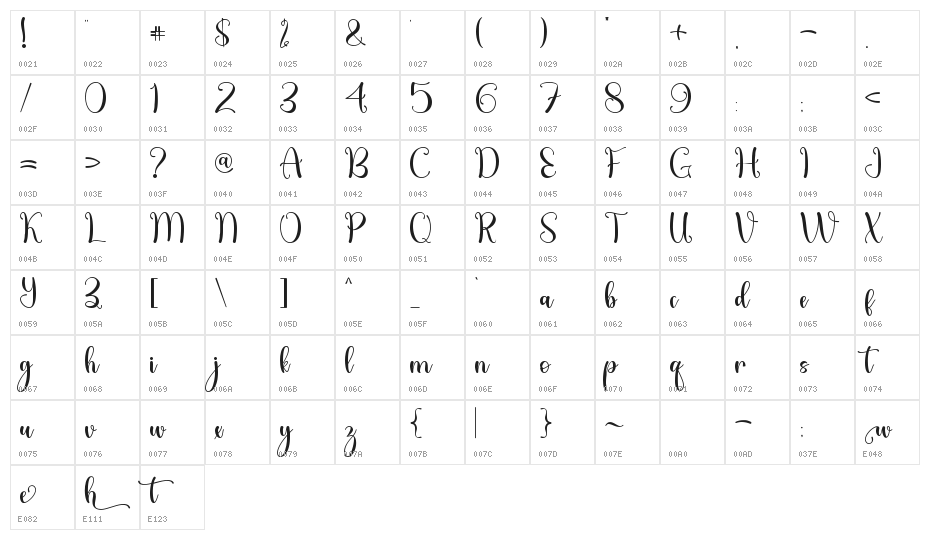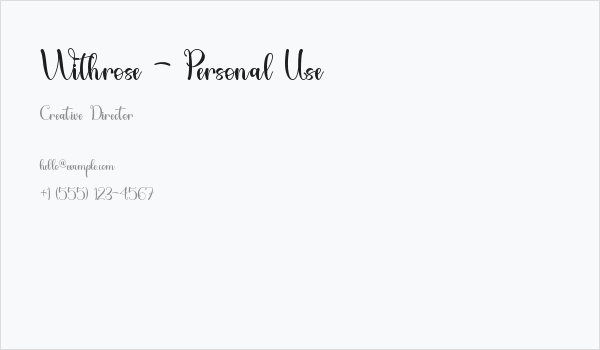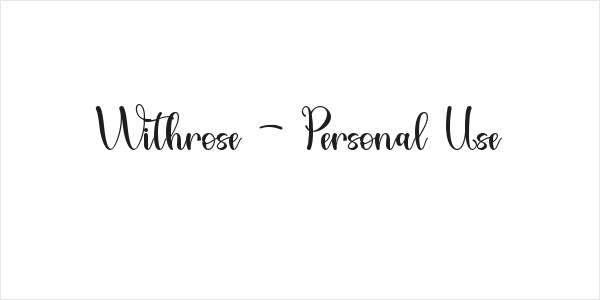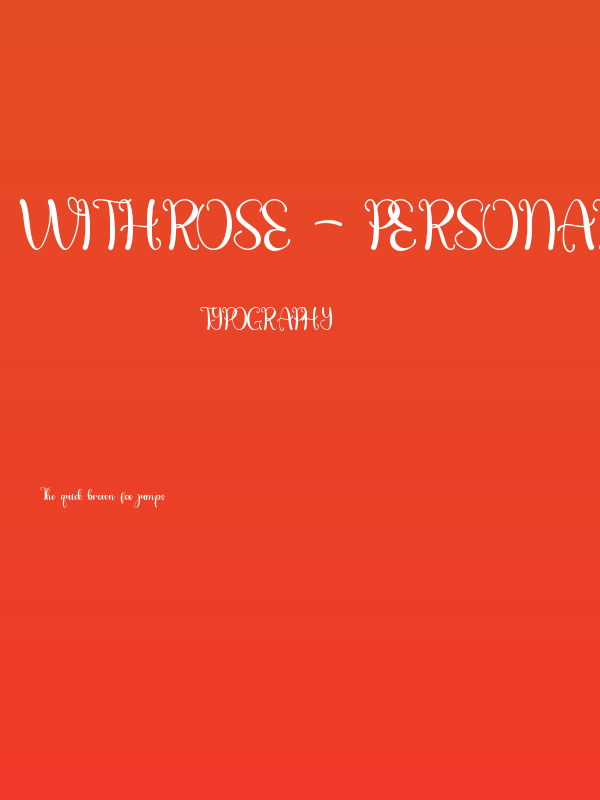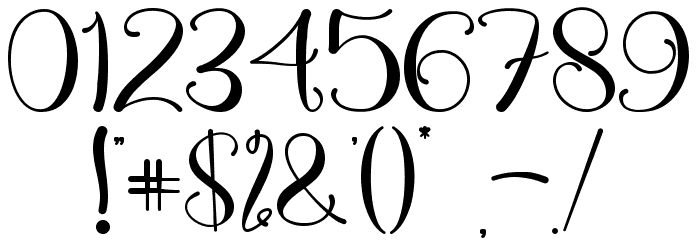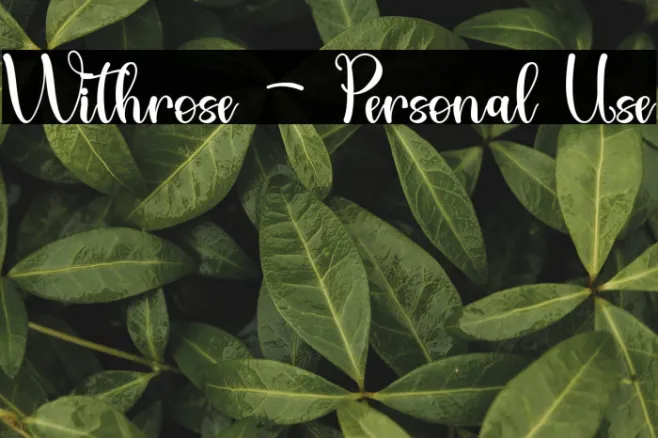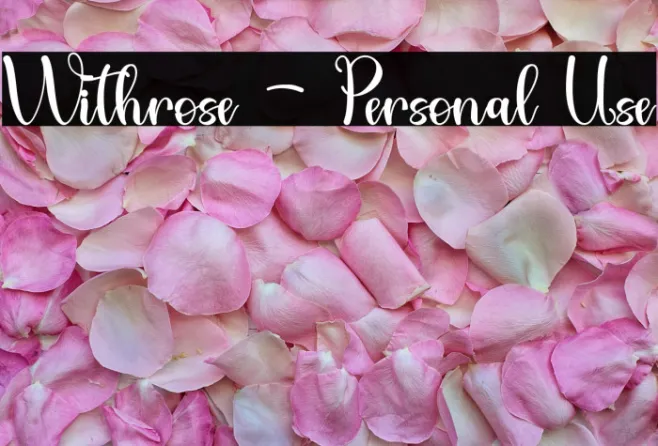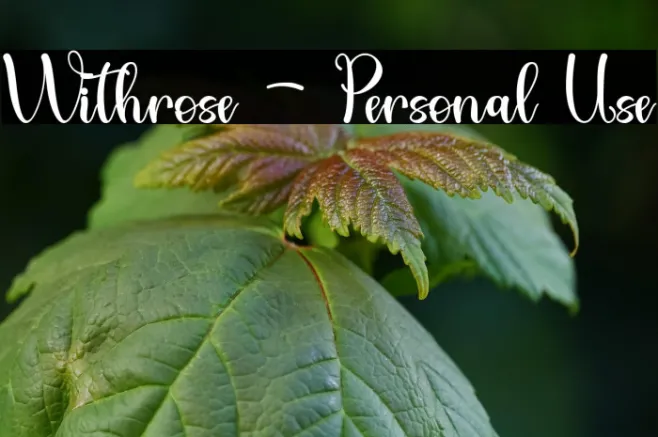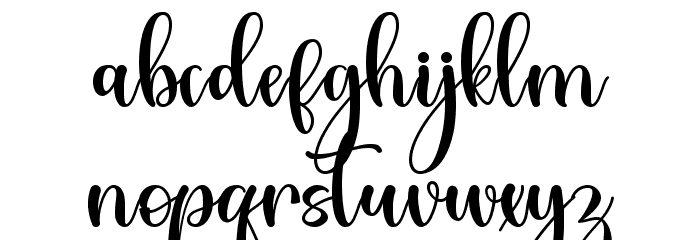
Withrose - Personal Use Font
Withrose - Personal Use Description
This elegant script font features a flowing, cursive style with graceful loops and swirls. The uppercase letters are particularly ornate, with extended flourishes that add a touch of sophistication and charm. The lowercase letters maintain a consistent style, offering a smooth and fluid appearance. The numerals are designed with a similar flair, ensuring a cohesive look across all characters. Special characters are thoughtfully integrated, maintaining the overall aesthetic. This font is perfect for projects that require a personal and artistic touch, such as invitations, greeting cards, and branding materials.
| Proposed Projects | Ideal for wedding invitations, greeting cards, branding, and artistic projects. |